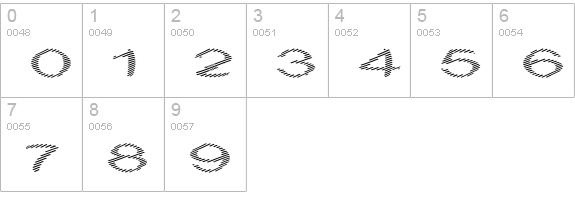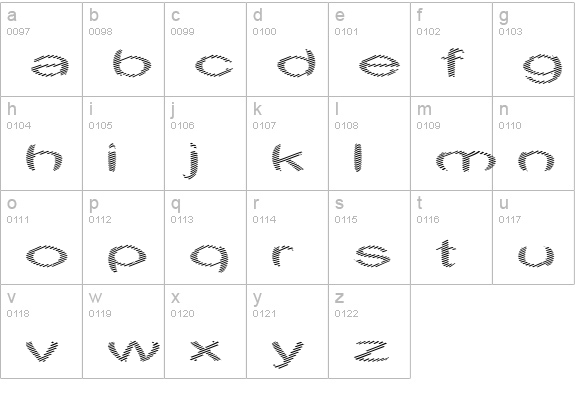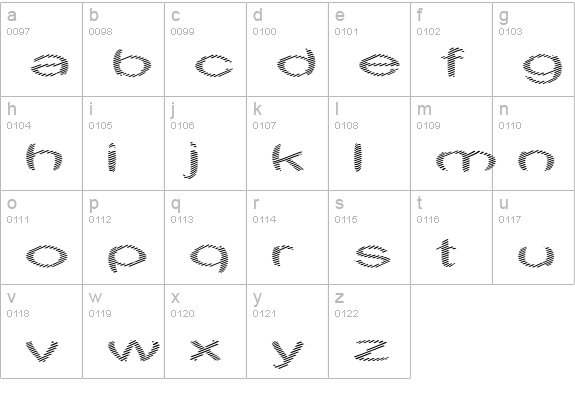
Obtuse One Font Details
The Obtuse One font is a unique and modern typeface that is perfect for creating eye-catching designs. With its bold lines and distinctive angles, this font is sure to make a statement in any project. Whether you're designing a poster, logo, or website, Obtuse One will add a touch of sophistication and style. What's even better is that this font is available for free download at FontsMarket.com. So you can easily add this stunning font to your collection without breaking the bank. Don't miss out on the opportunity to enhance your designs with the striking Obtuse One font today!